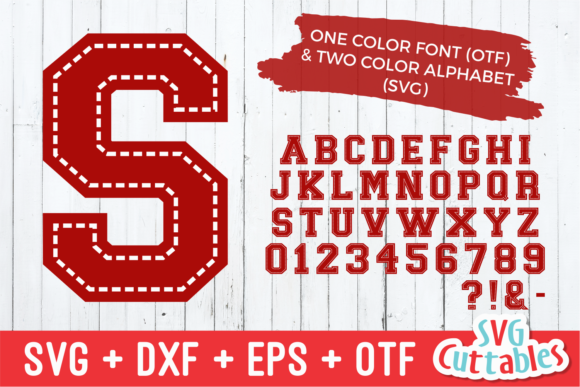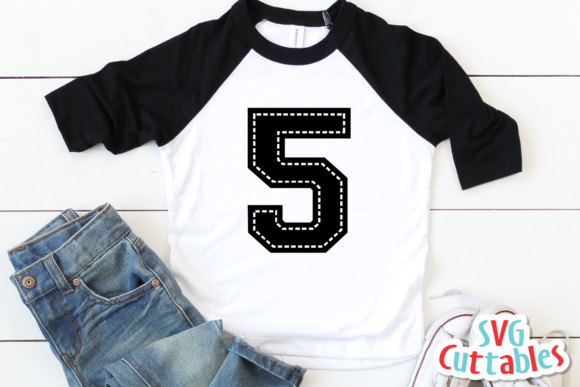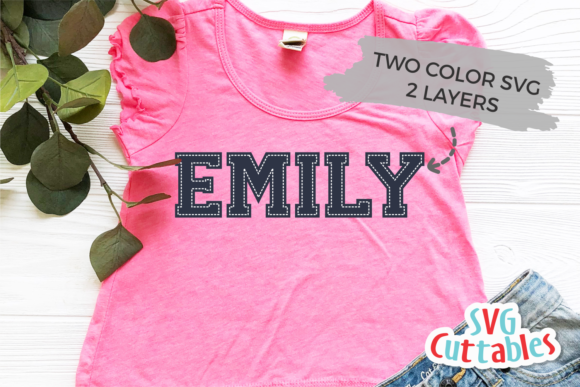
About the JP Sport Stitch Font
Add a touch of class to your work with the JP Sport Stitch Font, a truly exceptional typeface. JP Sport Stitch is a bold and incredibly assertive slab serif font. Whether you’re using it for crafts, digital design, presentations, or making greeting cards, this font has the potential to become your favorite go-to font, no matter the occasion!
Its strong, geometric slab serifs make JP Sport Stitch ideal for headlines, logos, and short impactful statements in branding materials or posters. The font’s boldness commands attention, making it perfect for projects needing a strong visual presence. However, its assertive nature makes it unsuitable for body text or long-form content; readability suffers at smaller sizes.
For a balanced aesthetic, consider pairing JP Sport Stitch with a clean sans-serif like Open Sans for body copy, creating a striking contrast. Alternatively, a delicate script font like Great Vibes could add a touch of elegance to offset the font’s boldness, particularly in projects that require both a powerful and sophisticated feel.
JP Sport Stitch projects a bold, confident, and slightly rebellious personality. It’s a strong choice for brands targeting active, energetic, and modern audiences in fields like sports, streetwear, or music. Avoid using it where a more refined or understated aesthetic is required.